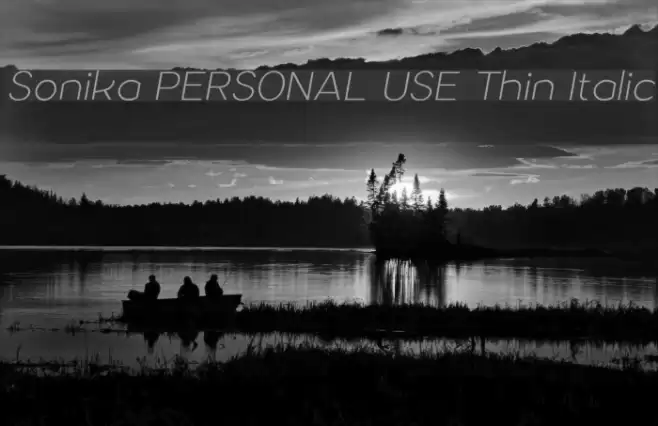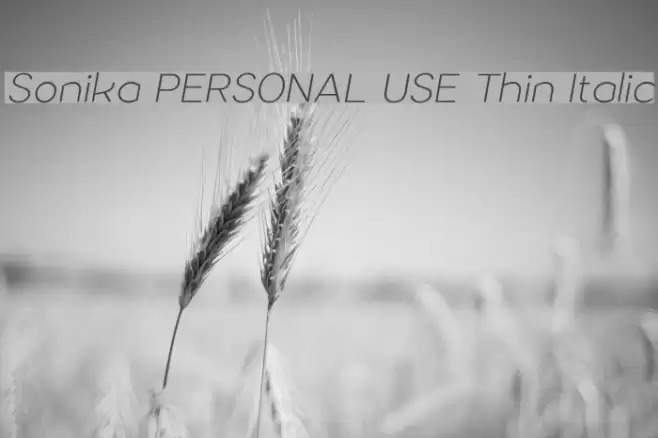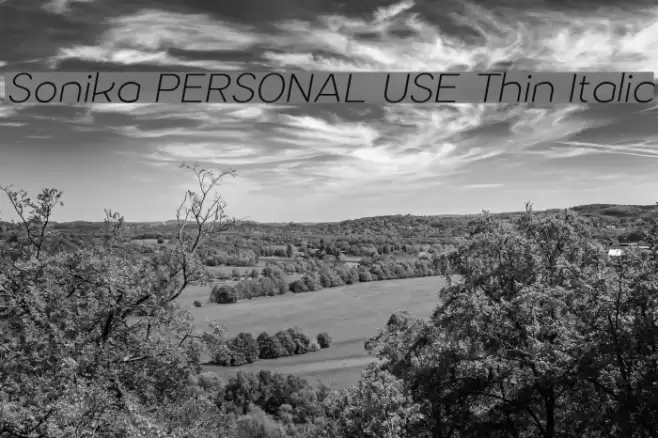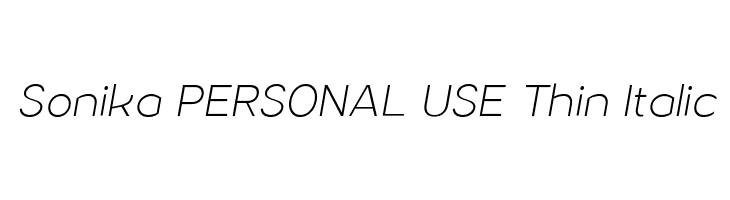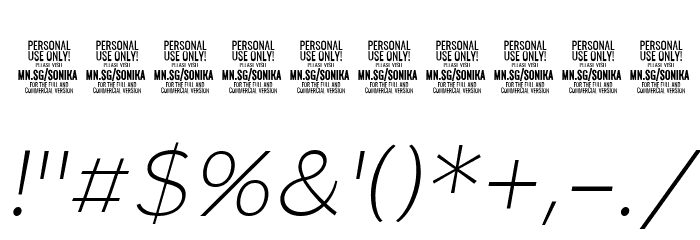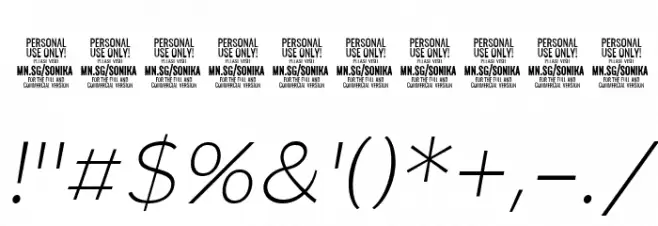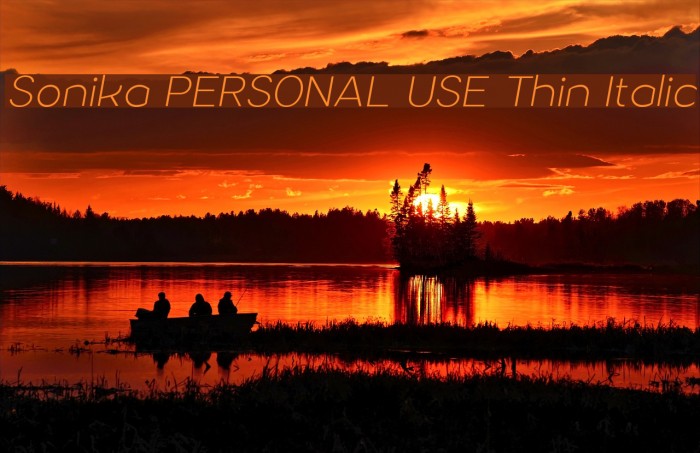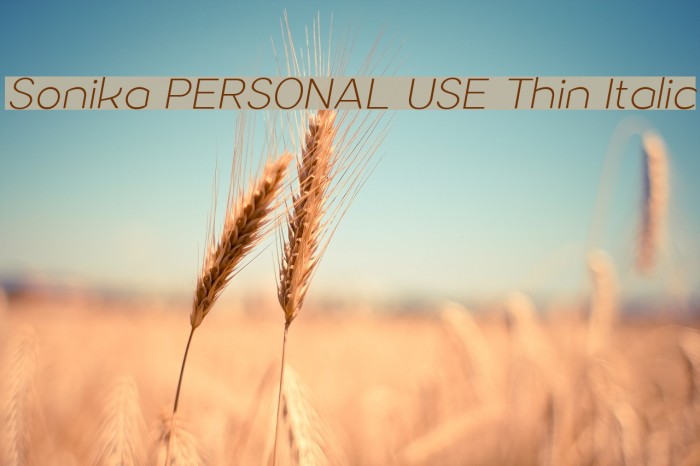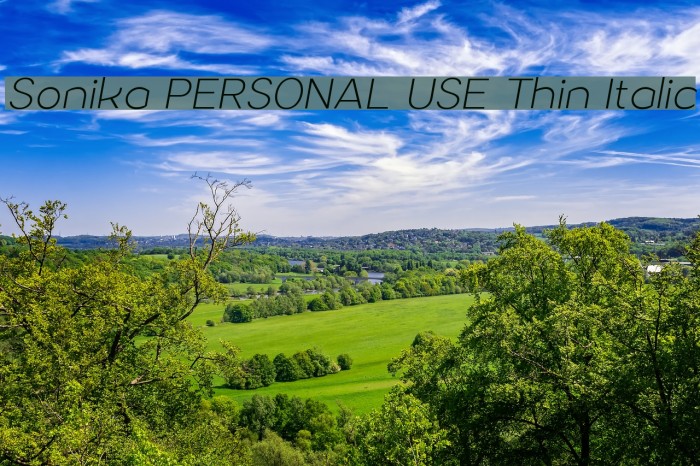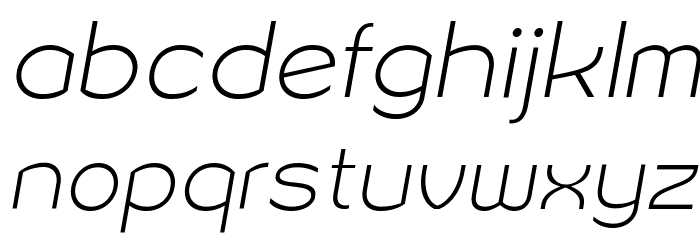
Sonika PERSONAL USE Thin Italic Font
Sonika PERSONAL USE Thin Italic Description
This font features a sleek and modern design with thin, elongated letterforms that exude elegance and sophistication. The italic style adds a dynamic and fluid touch, making it suitable for creative and artistic projects. The characters are well-spaced, ensuring readability while maintaining a stylish appearance. The font includes a full set of uppercase and lowercase letters, numerals, and a variety of special characters, providing versatility for various design needs. Its minimalist aesthetic is perfect for contemporary branding, editorial layouts, and digital interfaces.
A sleek, modern thin italic font with elegant, elongated letterforms from Uncategorized fonts.
- Proposed Projects: Ideal for branding, editorial design, digital interfaces, and creative projects requiring a modern touch.